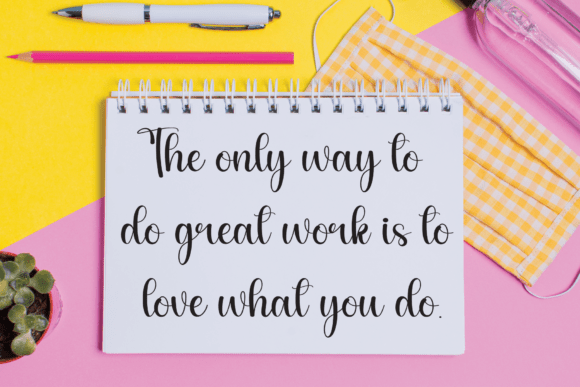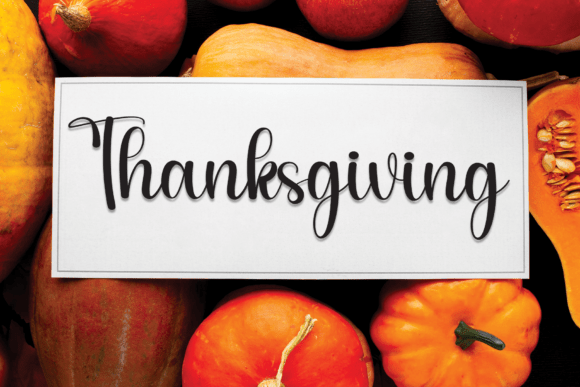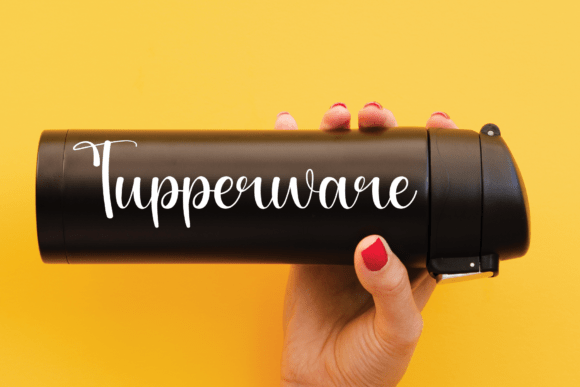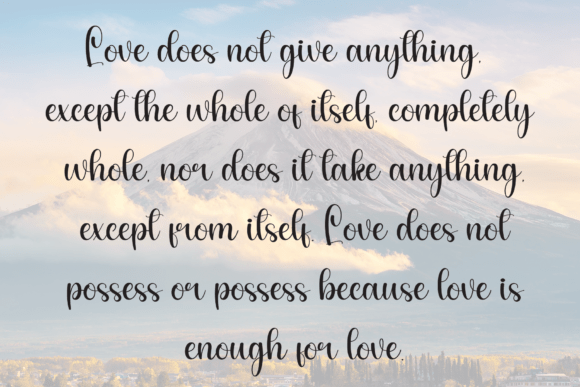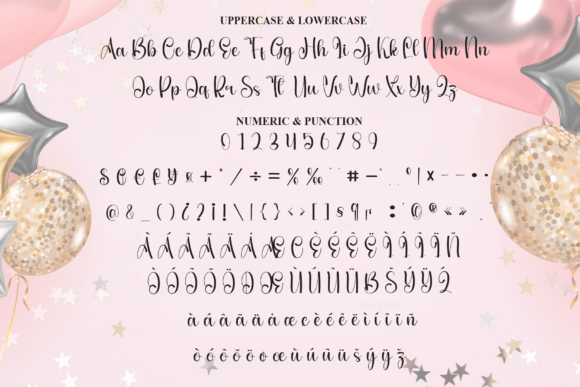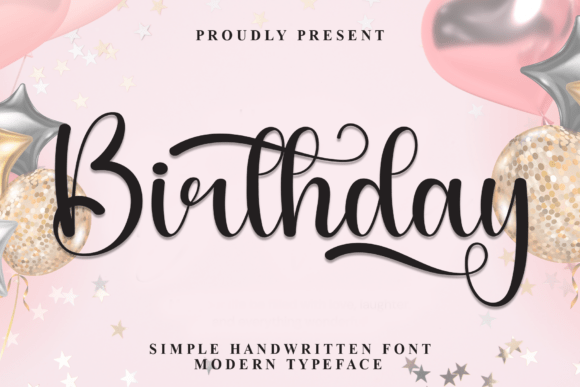
Introducing Birthday Font: Elevate Your Designs with Elegance and Charm
Are you on the lookout for a font that can add a touch of sophistication and modern flair to your designs? Look no further than Birthday Font, a stylish handwritten script font that is sure to elevate your projects to new heights. With its flowing strokes and organic curves, this beautiful typeface brings warmth and refinement to any design, making it perfect for a wide range of applications.
The Perfect Blend of Elegance and Modernity
Birthday Font is a masterful blend of classic elegance and modern charm. Its handwritten script style gives it a personal and approachable feel, while its refined strokes and curves add a level of sophistication that is hard to find in other fonts. Whether you’re working on a branding project, creating invitations, or designing social media graphics, this font is sure to bring a touch of luxury and refinement to your work.
• Handwritten Script Style: Birthday Font features a beautiful handwritten script style that adds a personal touch to any design.
• Flowing Strokes and Organic Curves: The font’s flowing strokes and organic curves give it a natural, effortless feel that is perfect for creating elegant and refined designs.
• Elegant and Modern: Birthday Font combines classic elegance with a modern flair, making it perfect for designers who want to create sophisticated and stylish designs.
• Versatile: This font is suitable for a wide range of applications, including branding, invitations, social media graphics, and more.
Uses for Birthday Font
Birthday Font is a versatile typeface that can be used in a variety of design projects. Here are some ideas to get you started:
• Branding: Use Birthday Font to create elegant and sophisticated brand identities that will help you stand out from the competition.
• Invitations: Create beautiful and refined invitations for weddings, parties, and other special events.
• Social Media Graphics: Use Birthday Font to create eye-catching and engaging social media graphics that will help you connect with your audience.
• Packaging: Add a touch of luxury and refinement to your product packaging with Birthday Font.
Why Choose Birthday Font?
There are many fonts to choose from, but Birthday Font stands out from the rest. Here are just a few reasons why:
• Unique and Elegant: Birthday Font is a unique and elegant typeface that will help you create designs that stand out from the crowd.
• High-Quality: This font is designed to the highest standards, ensuring that it will look great in any design.